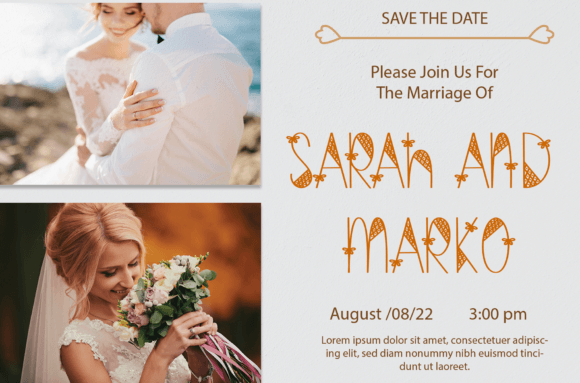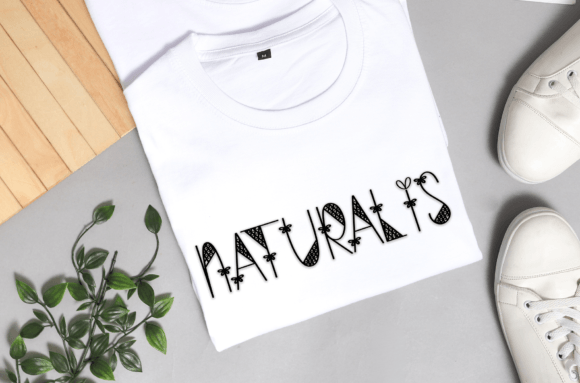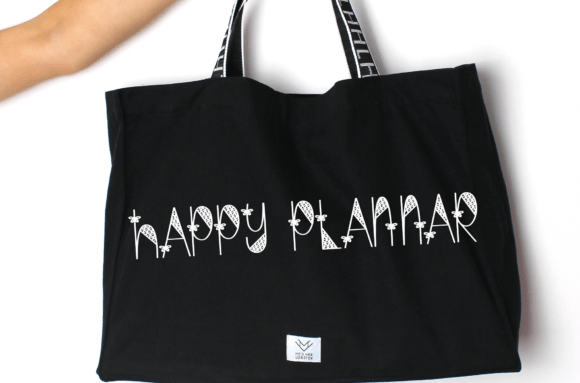
Introduction to Plant Basket Font
Plant Basket is a sweet and friendly decorative font.
Creative and versatile, this font is ideal for writing wedding invitations, cards, or any other design that might need a fun touch .